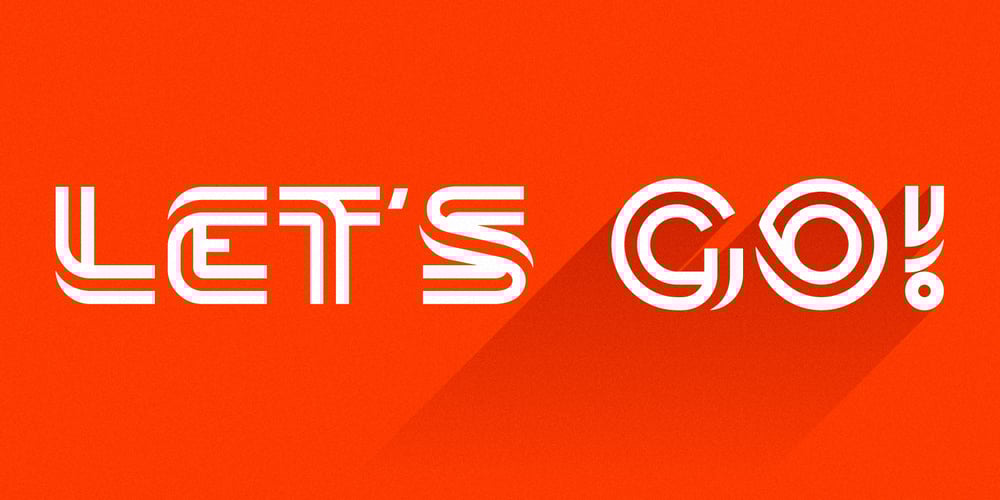
Sport Lines Font Family was designed by Roman Korolev and published by Kaer. Sport Lines contains 1 styles and family package options. Typeface for sport labels, business headlines, finance posters, delivery cards etc.Letters made of two parallel lines.I hope you enjoy this font. Follow my shop to receive updates of products and the very hottest news! If you have any question or issue, please contact me: kaer.pro@gmail.com Please request to add additional characters and glyphs if you need! Thank you!